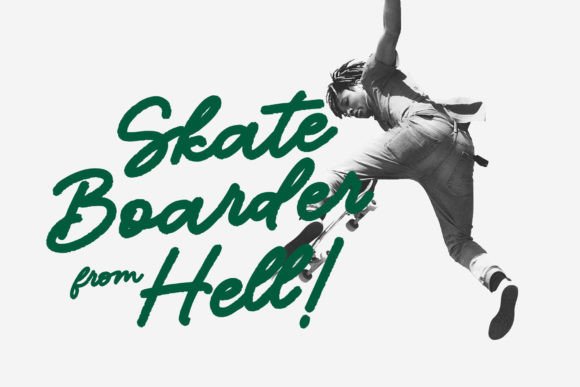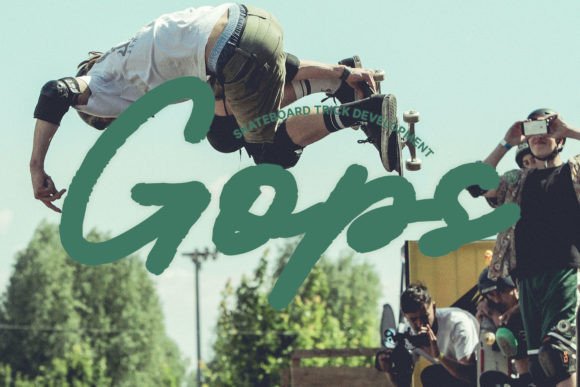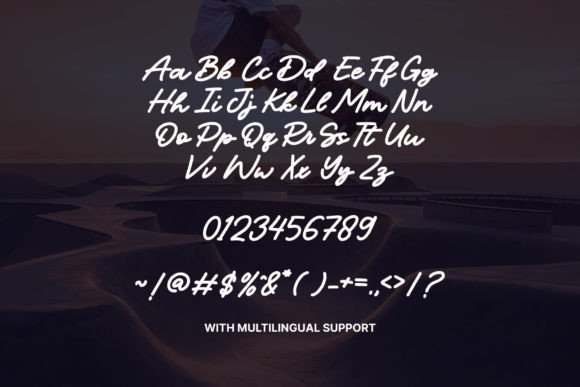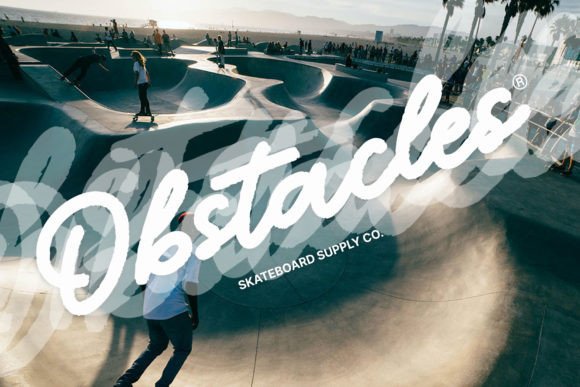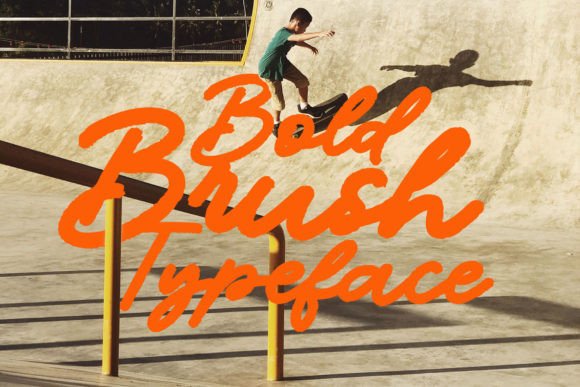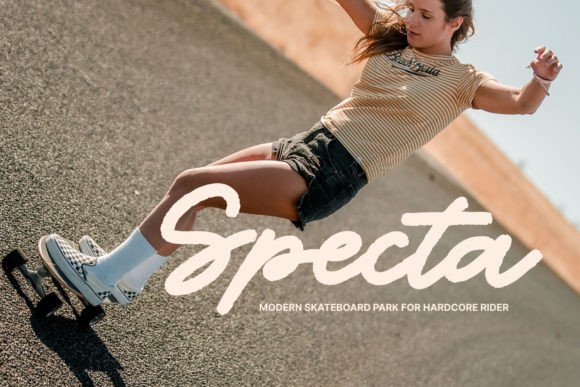
The Quest for the Perfect Font: Discovering High Prime
I still remember the frustration of working on a project, hours spent searching for that one font that would bring it all together. My client wanted something bold, something that would make their brand stand out, but I just couldn’t seem to find it. That was until I stumbled upon High Prime, a cool and modern brush display font that has since become a staple in my design toolkit.
A First Impression: What Makes High Prime Special
High Prime is described as a bold and assertive font, and that’s no understatement. Its unique brush-like texture gives it a distinctive look that’s both modern and daring. This font is perfect for projects that need a bit of attitude, making it a great choice for designers, crafters, and creative hobbyists looking to make a statement.
Here’s what I love about High Prime:
- ✨ Bold and Assertive: High Prime’s bold look is perfect for making a statement.
- ✅ Modern Aesthetic: Its modern brush texture gives it a fresh feel.
- 🌈 Versatile: It can be used for a variety of projects, from branding to advertising.
And here are a few quirks to consider:
- 🤔 Legibility at Small Sizes: High Prime can be a bit tricky to read at smaller sizes, so it’s best used for headlines or titles.
- ⚠️ Overuse: Because it’s so bold, it can quickly overwhelm a design if overused.
The Story Behind High Prime: Designer Inspiration
While the specific inspiration behind High Prime might not be well-documented, it’s clear that the designer aimed to create a font that embodies boldness and modernity. Fonts like High Prime are often created with the intention of pushing the boundaries of digital typography, offering designers a fresh alternative to more traditional fonts.
| What makes High Prime unique? | High Prime’s unique brush-like texture and bold appearance make it stand out. |
| Is High Prime suitable for body text? | No, High Prime is best used for headlines or titles due to its bold look and potential legibility issues at smaller sizes. |
| Does High Prime support OpenType features? | Yes, High Prime supports OpenType features, allowing for advanced typography. |